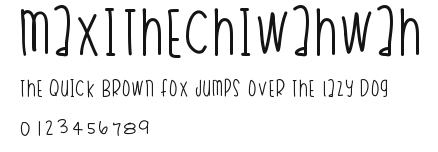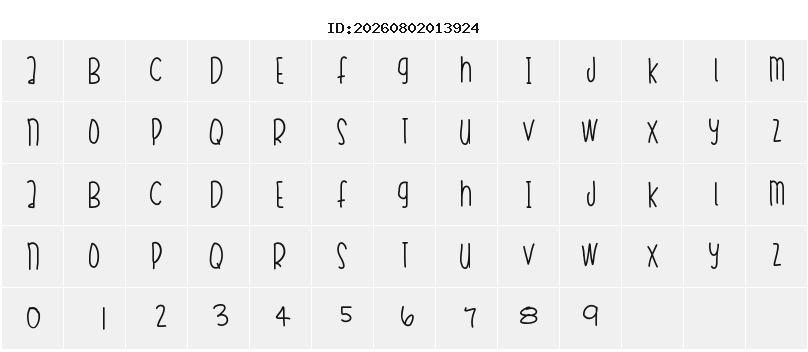
About MaxiTheChiwahwah.ttf
MaxiTheChiwahwah.ttf is a modern, elegant sans-serif font designed for ultimate readability and visual harmony. Perfect for branding, headlines, web design, and print materials.